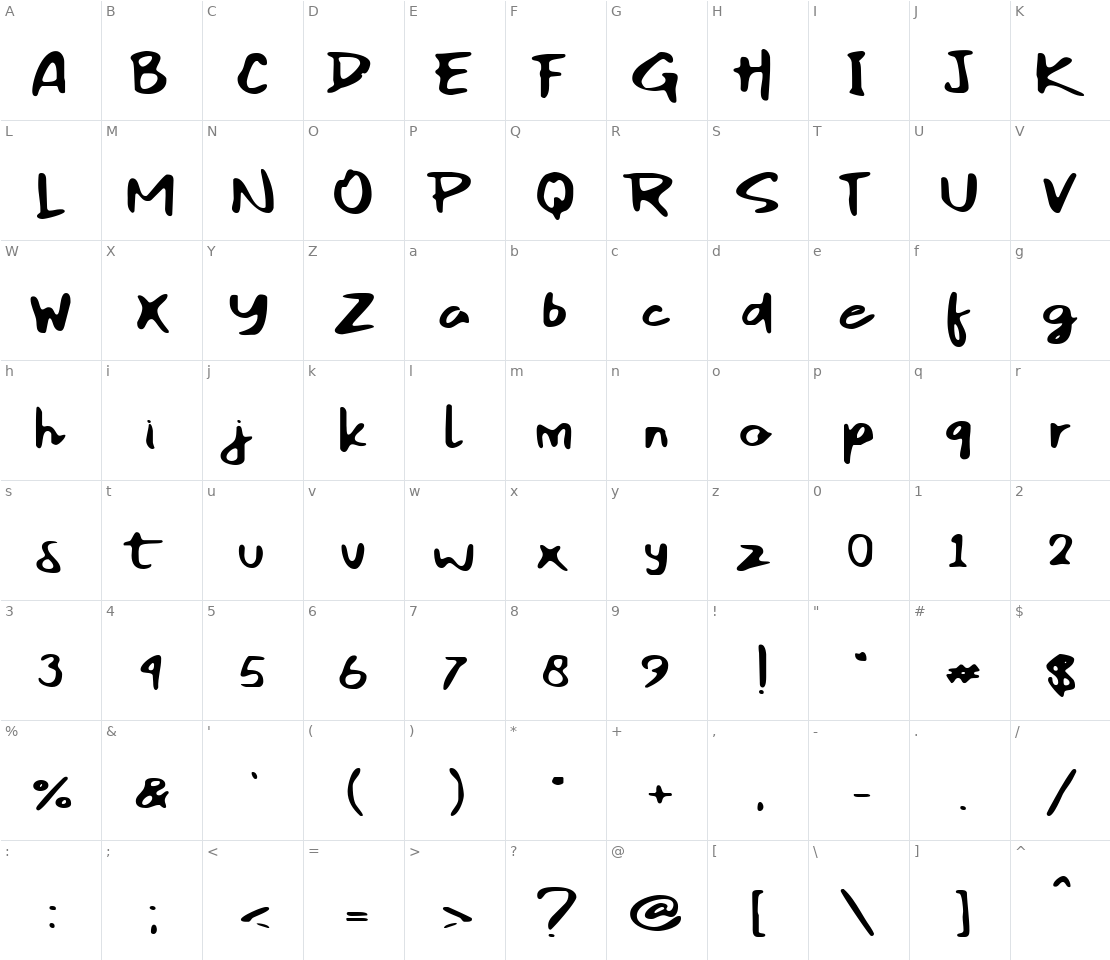
Reckless Art
Reckless Art is a thick, marker-style handwritten face from Lettersiro Studio with bold, confident strokes that feel like someone grabbed a fat chisel-tip pen and went at it without hesitation. The letterforms are playful and loose but carry enough weight to hold their own as display type, making them a natural pick for headlines, packaging, and branding that needs to feel human and energetic rather than polished.